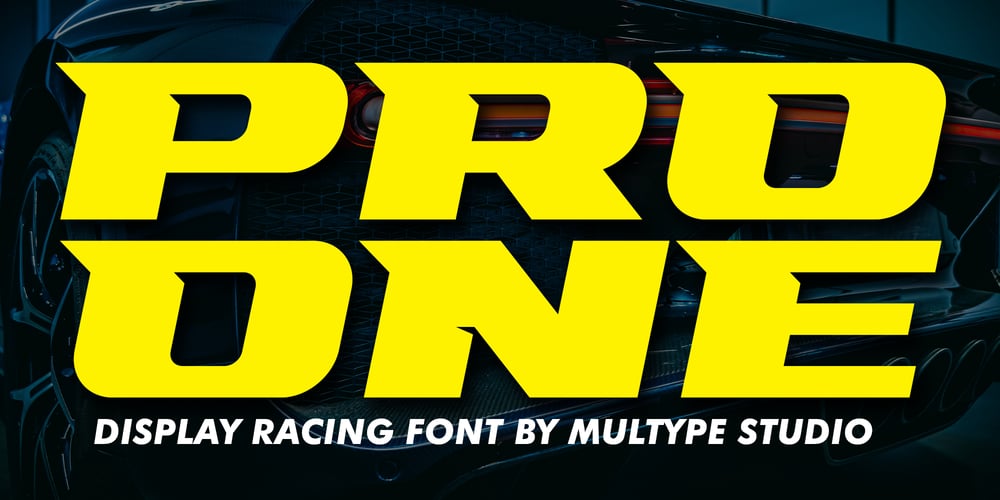
Racing Pro One Font Family was designed by Mulia Yanto and published by Multype Studio. Racing Pro One contains 1 styles and family package options. Racing Pro One is a font with a racing theme font,brave, big, strong and fast. Consistent angles combined with a hard, strong style. So it looks very fast and powerful.Racing Pro One it’s perfect for logotype racing product, racing game covers, sports events, automotive posters, automotive magazine covers, branding, product design, labels and other creative project.What’s Included : ALL CAPS Numbers & Symbols Works on PC / Mac Simple installations Accessible in the Adobe Illustrator, Adobe Photoshop, Adobe InDesign, even work on Microsoft Word PUA Encoded Characters, Fully accessible without additional design software. Multilingual support Thank you for your purchase!Hope you enjoy with our font!